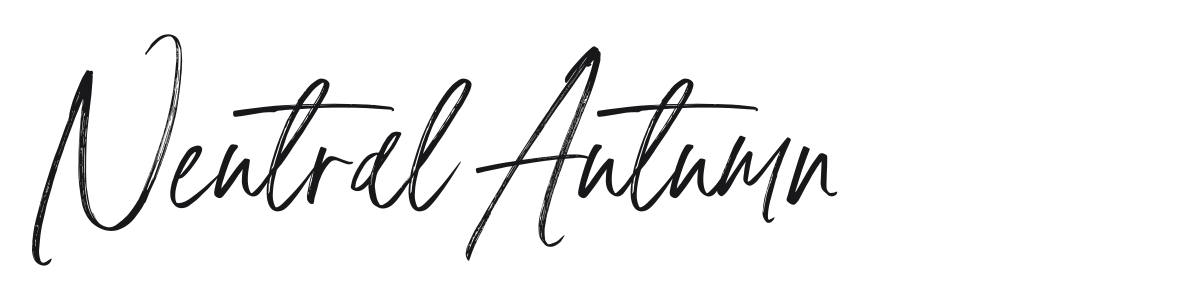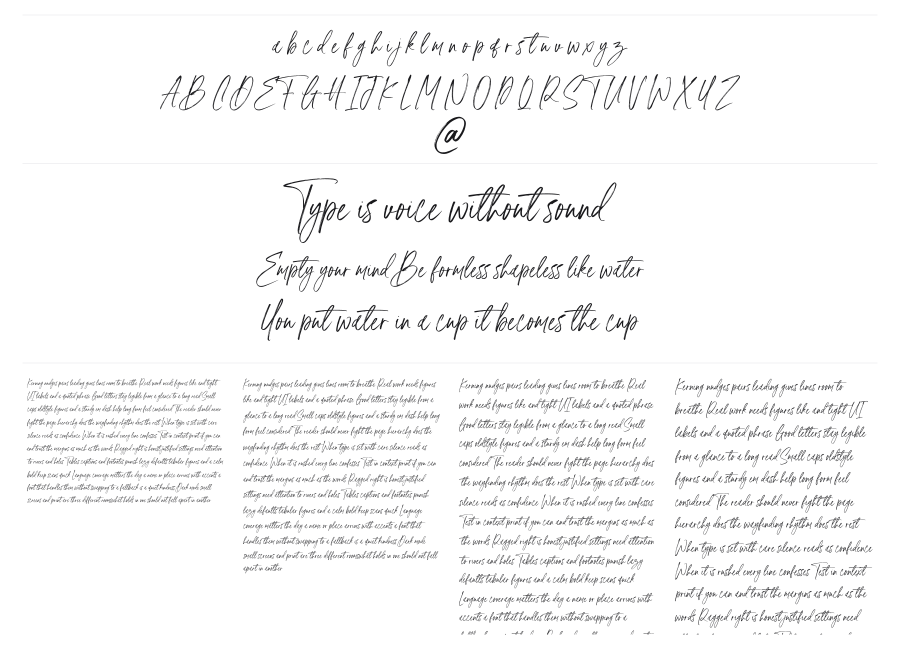
Neutral Autumn
Neutral Autumn is a casual handwritten script with loose, flowing connections and a natural pen-on-paper feel. The thin, relaxed strokes shift gently in angle and baseline, giving it the spontaneous energy of real handwriting without feeling sloppy. It works well at large sizes for logos, packaging, and social content where warmth and personality matter.